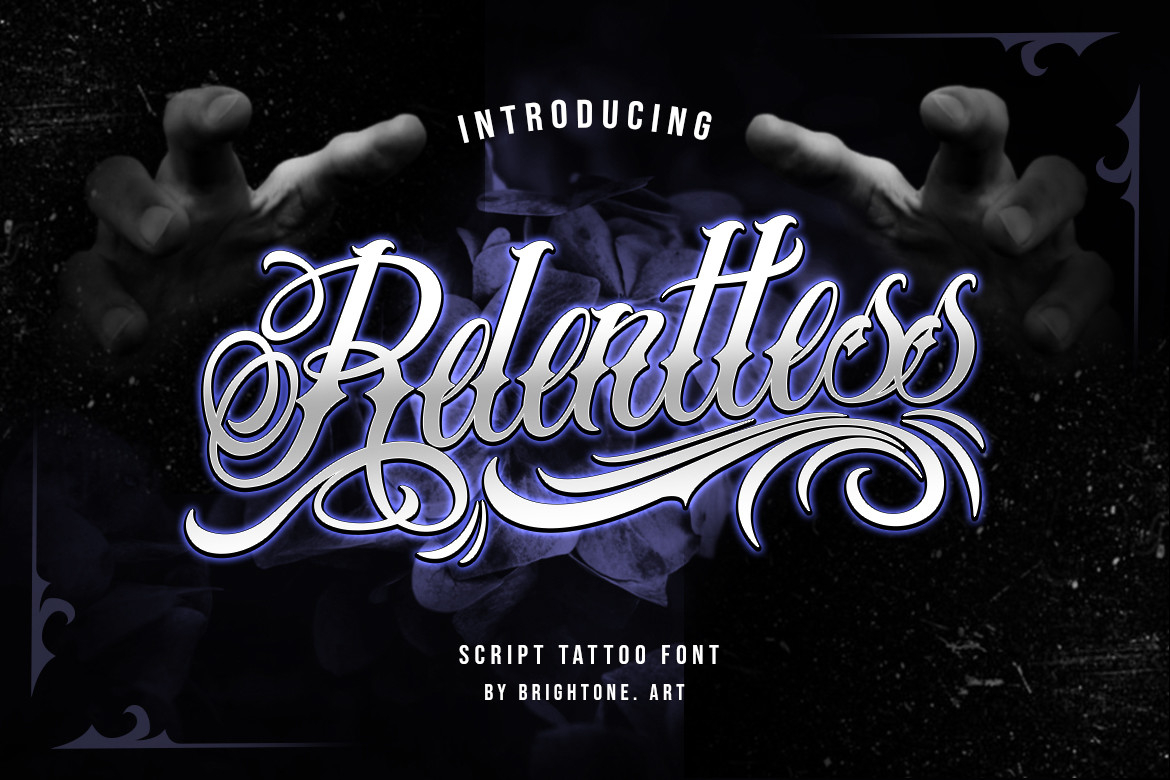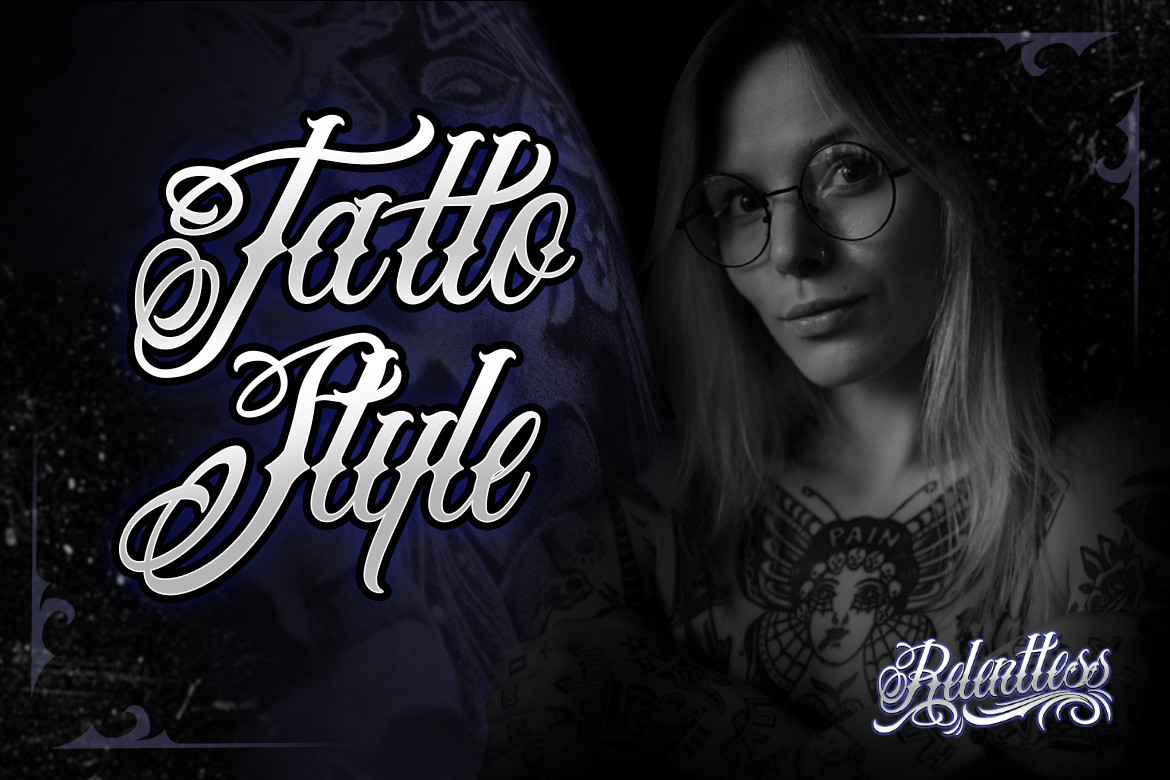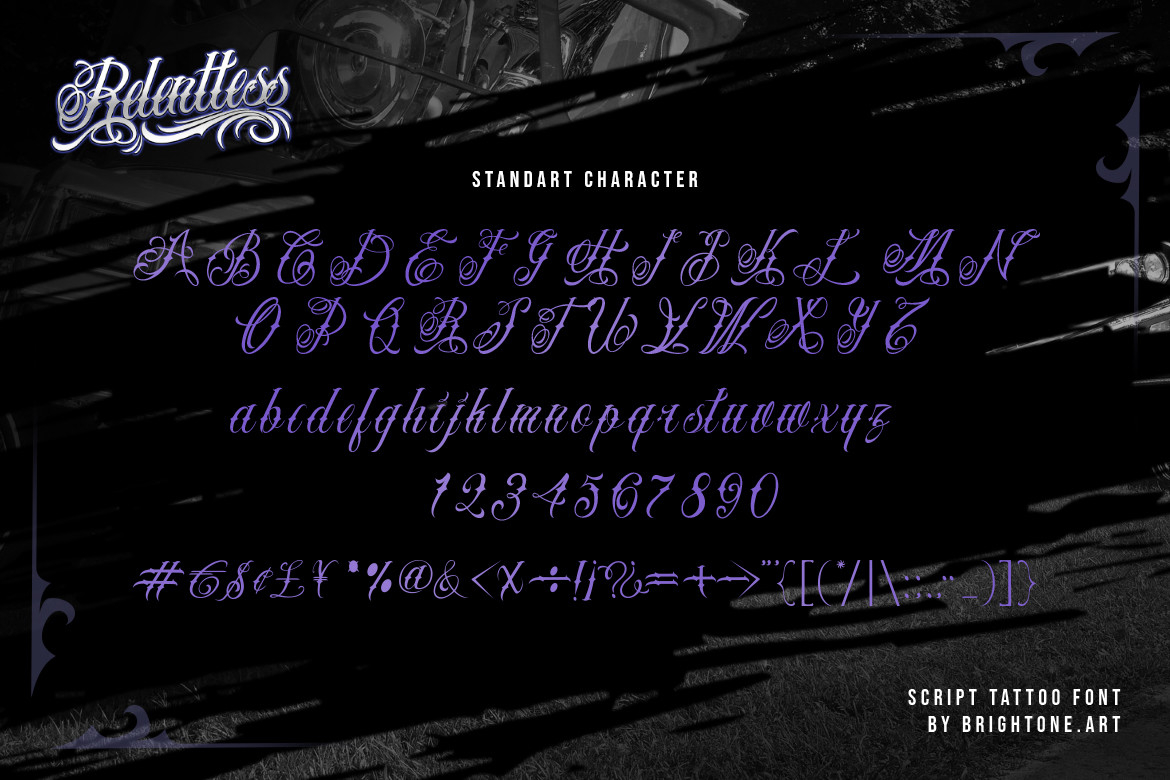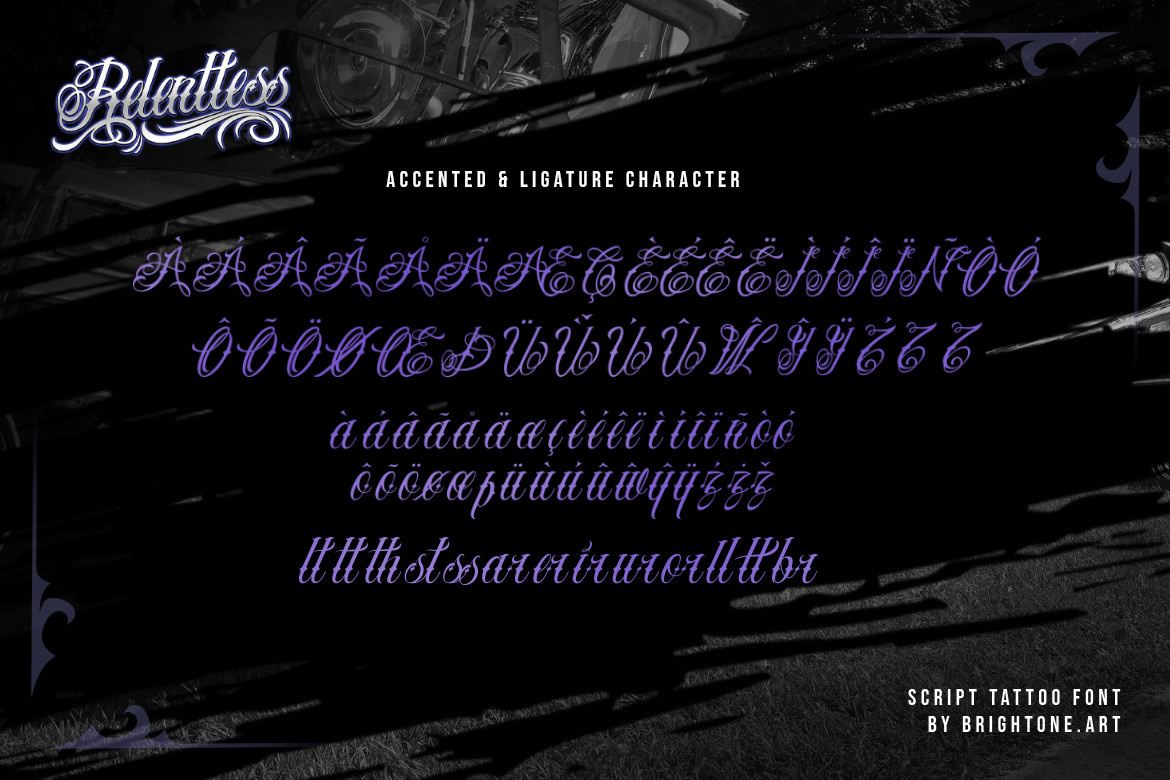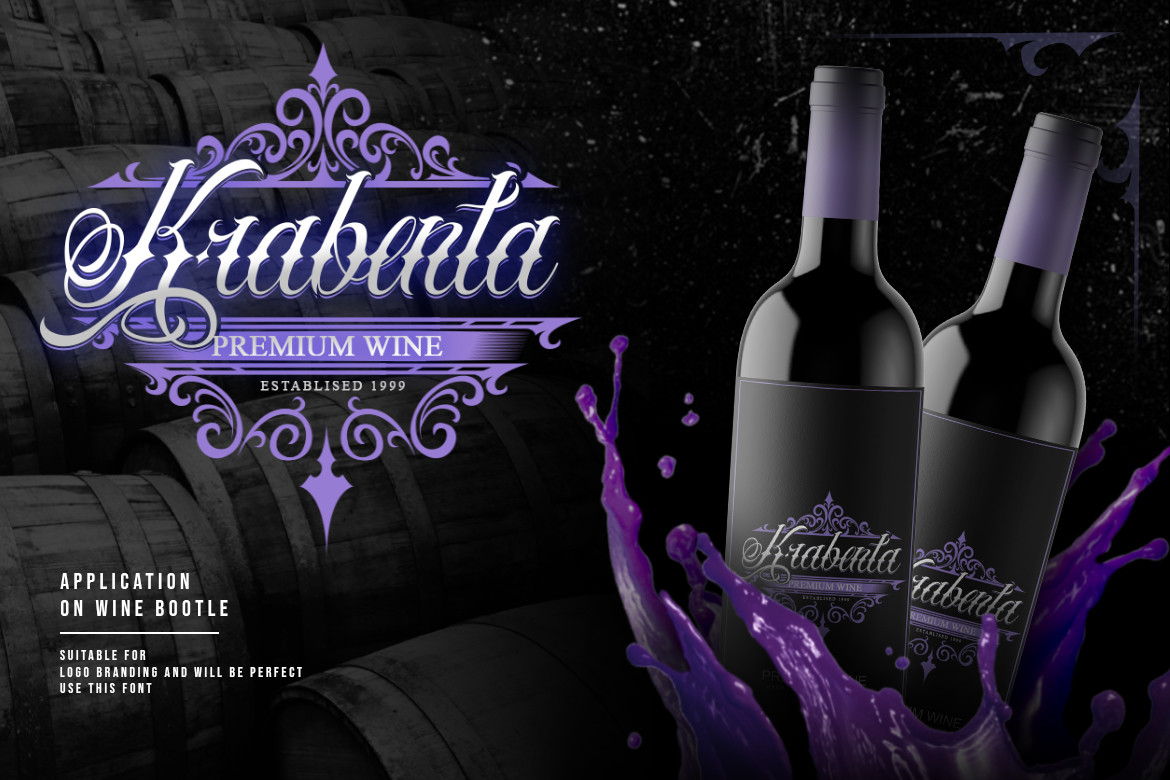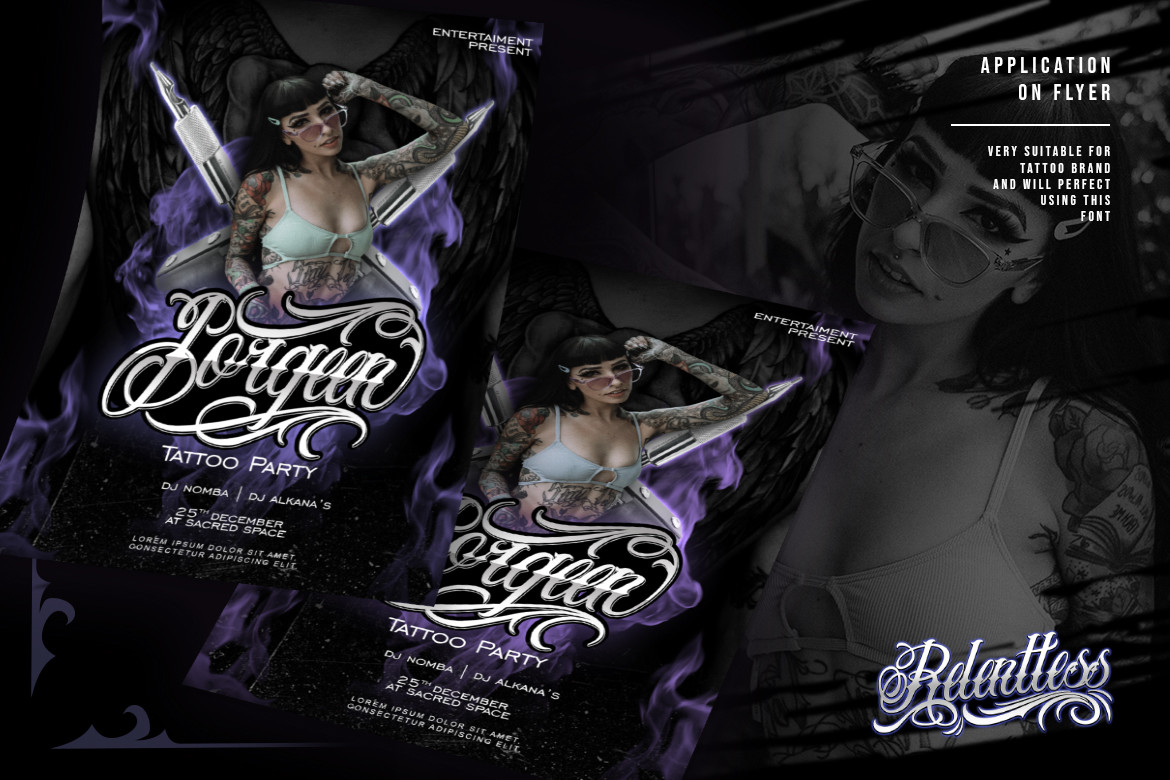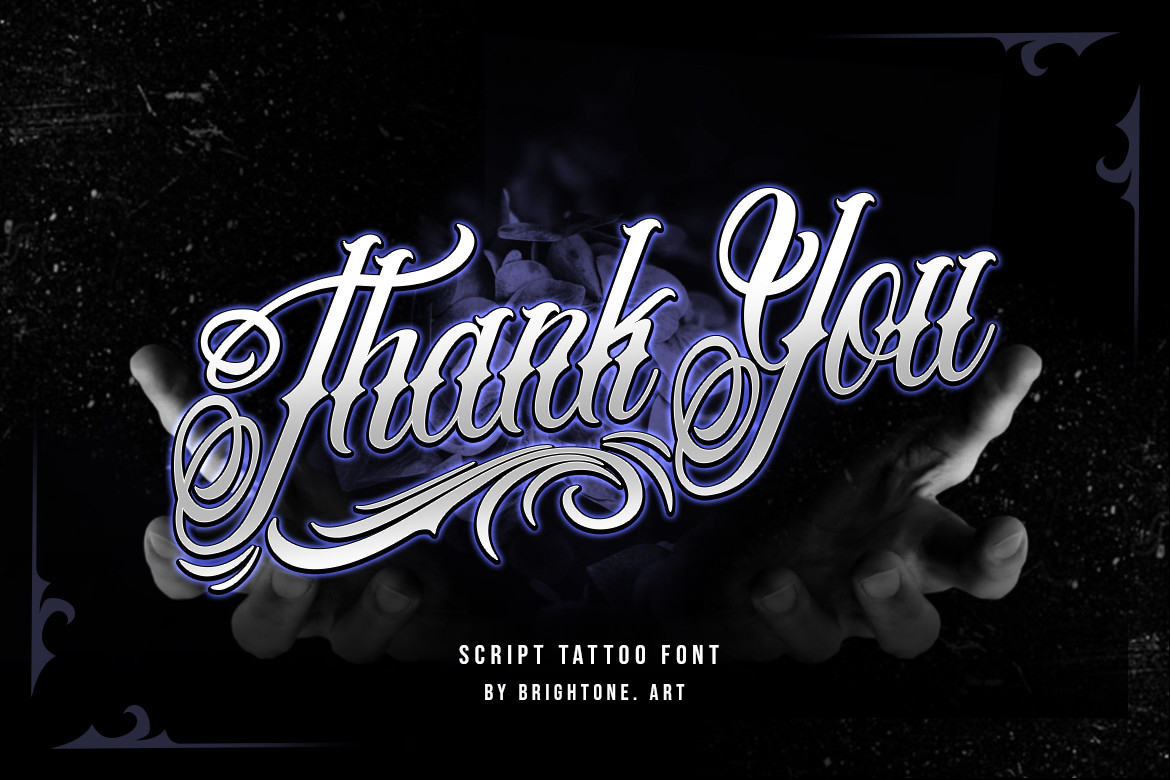
Relentless Font
About Relentless Font
Relentless is a bold and distinct blackletter font. It works incredibly well on labels, branding, tattoo designs or pretty much anything that requires an assertive touch. The only limit is your imagination.